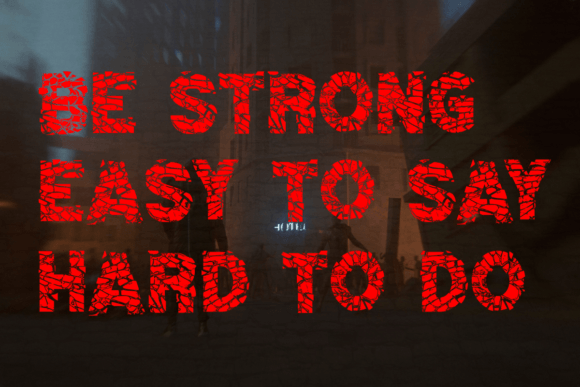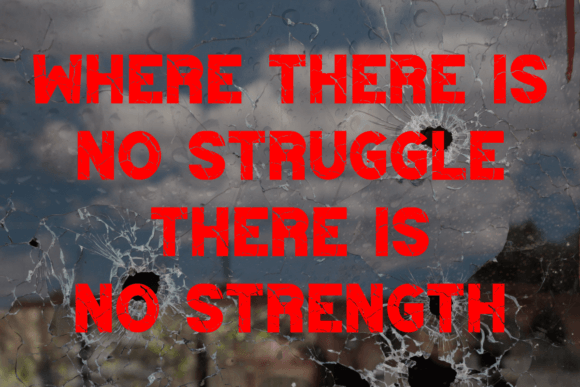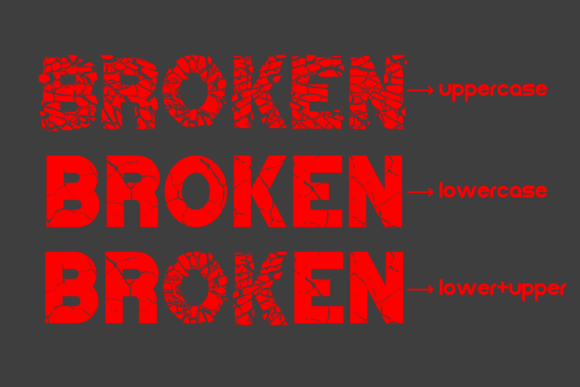
Stone Crack Font
Stone crack is a bold font that has a cracked and unique feel and also gives a vintage feel. The wide and bold characters make this font ideal for eye-catching designs. You can use it for headlines, t-shirt typography, banners, product labels, and can also be used in various handicraft projects such as t-shirts, hoodies, book covers, and others.